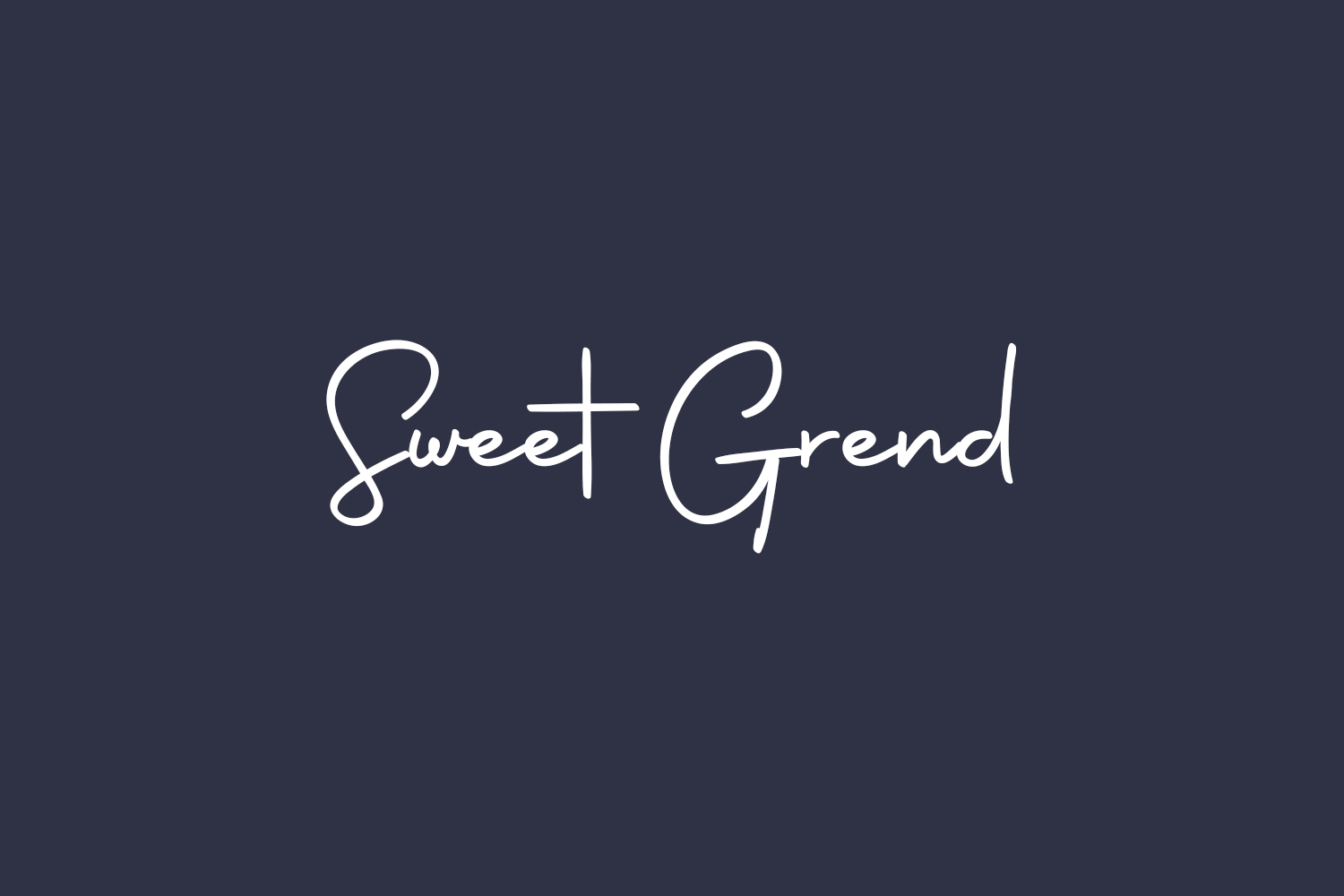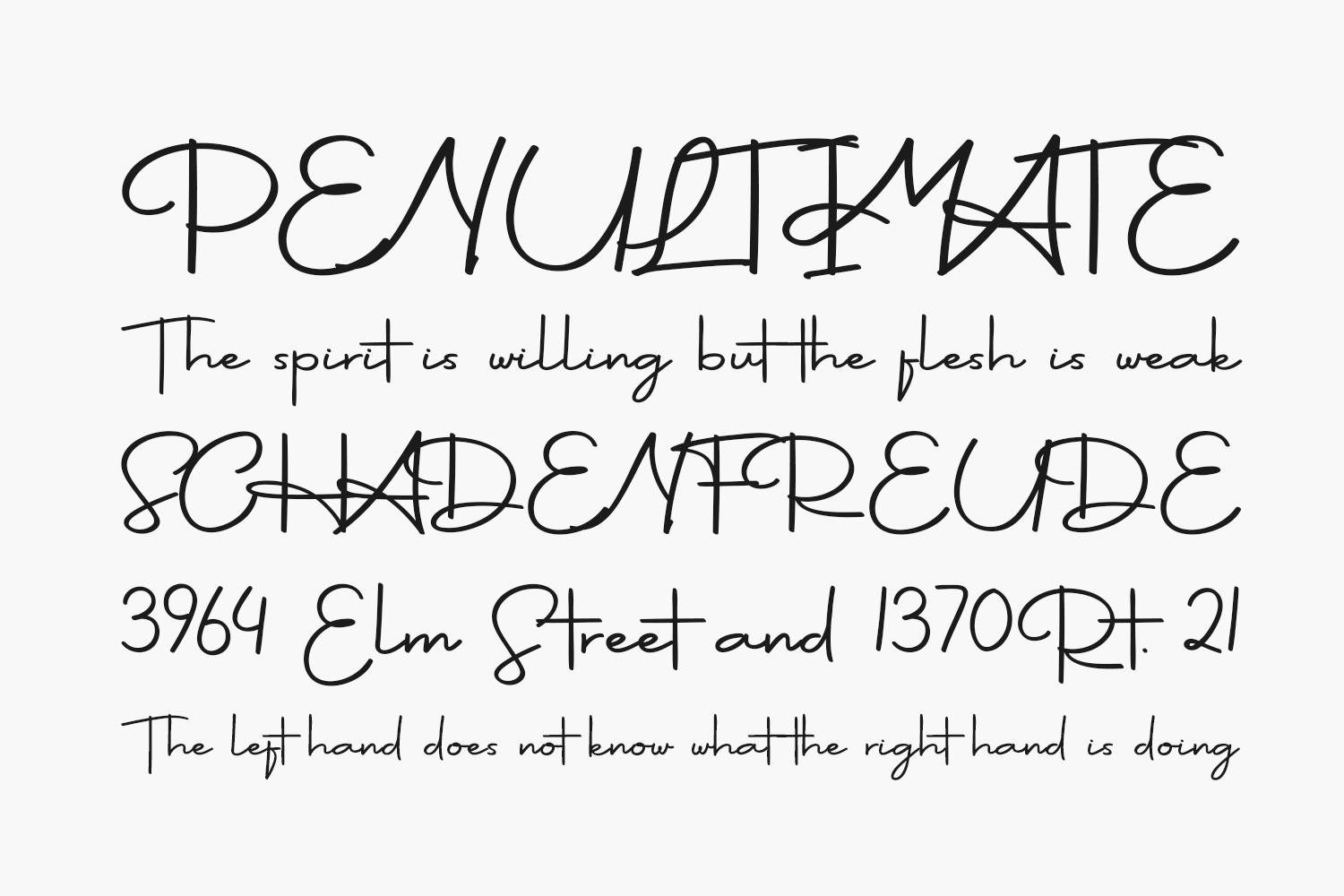
Sweet Grend Free Font is an exquisite handwritten font, masterfully designed to become a true favorite. It maintains its classy calligraphic influences while feeling contemporary and fresh. Sweet Grend Free Font was designed by Kateeng Ciu and is free for personal use only. Please purchase the full version for commercial use.